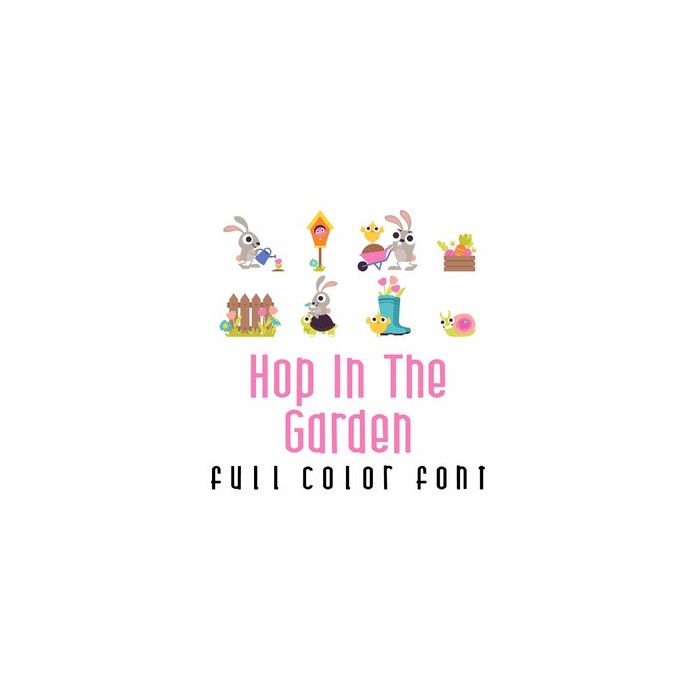
This adorable full color font features fun garden themed images. Perfect for cards, crafts, gifts, decor, scrap book pages, planner stickers and more!